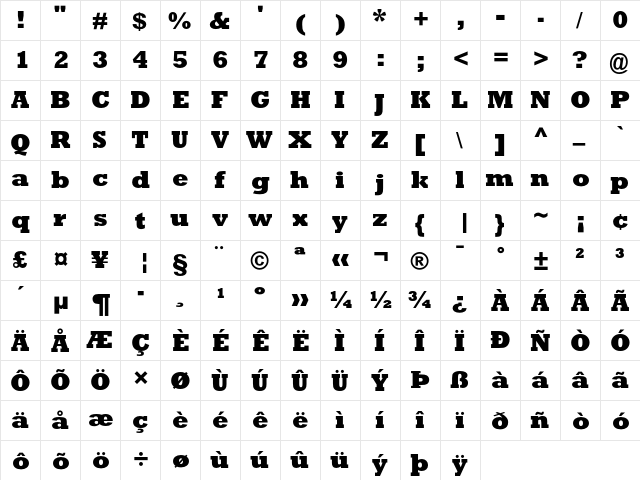
Rockwell Extra Bold
Design Context for Rockwell Typeface
Rockwell takes a measured approach to typography — its balanced proportions and neutral character make it a reliable workhorse for both digital and print work. The heavy weight commands attention and anchors typographic hierarchies.
Pro Tip: Pair Rockwell with a font of contrasting weight or personality to build a more expressive typographic hierarchy.